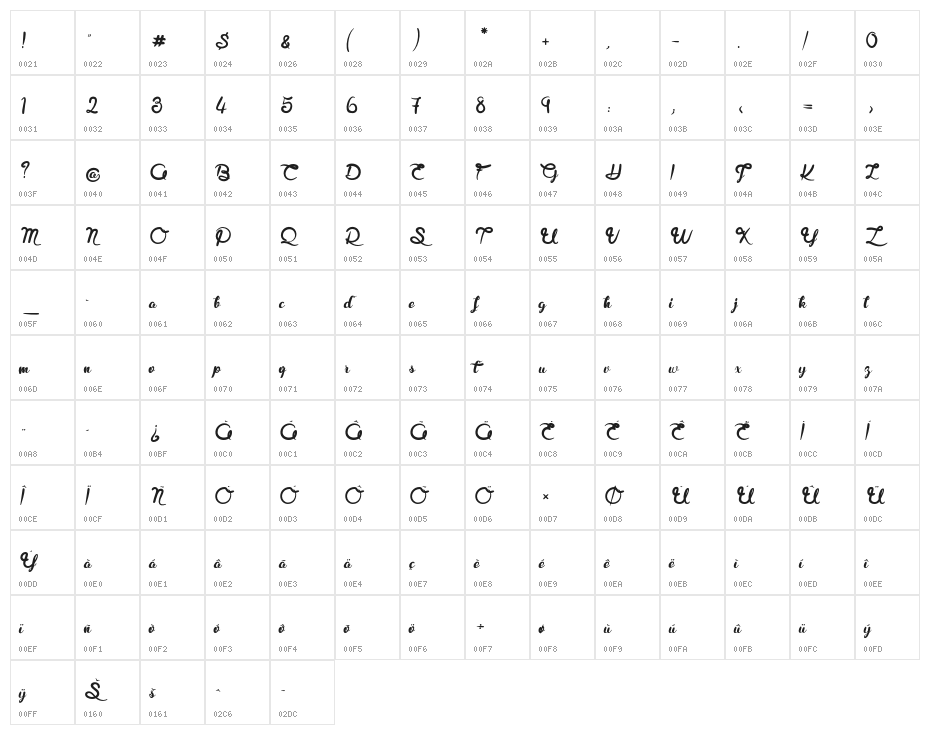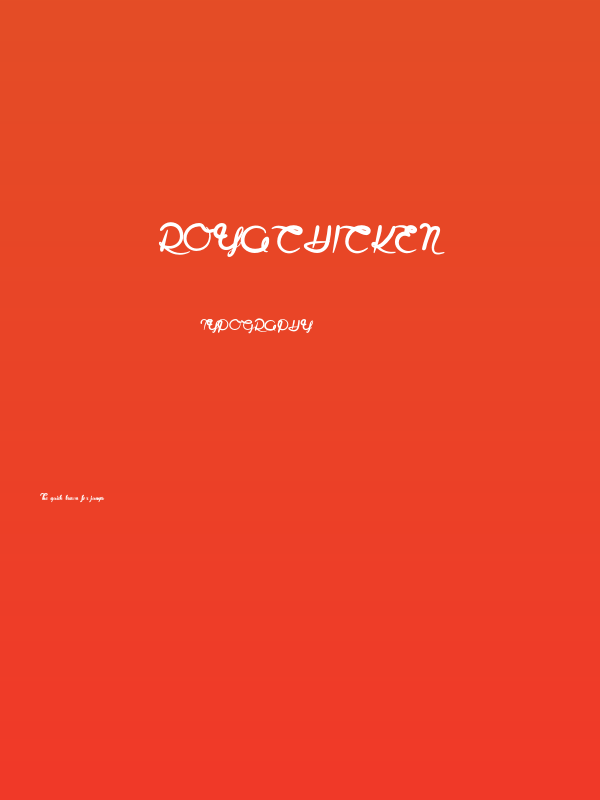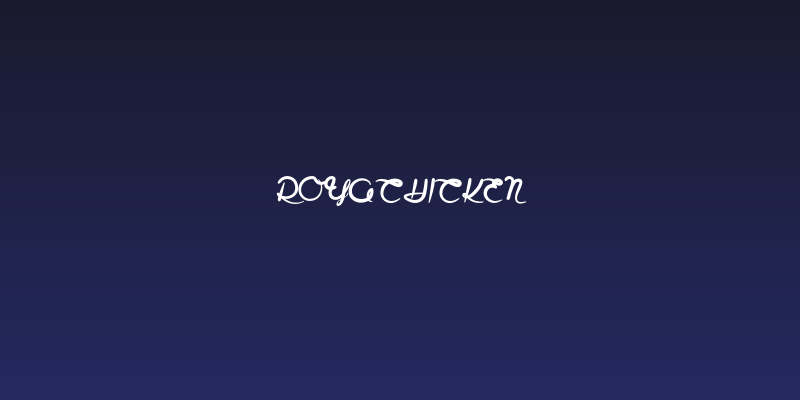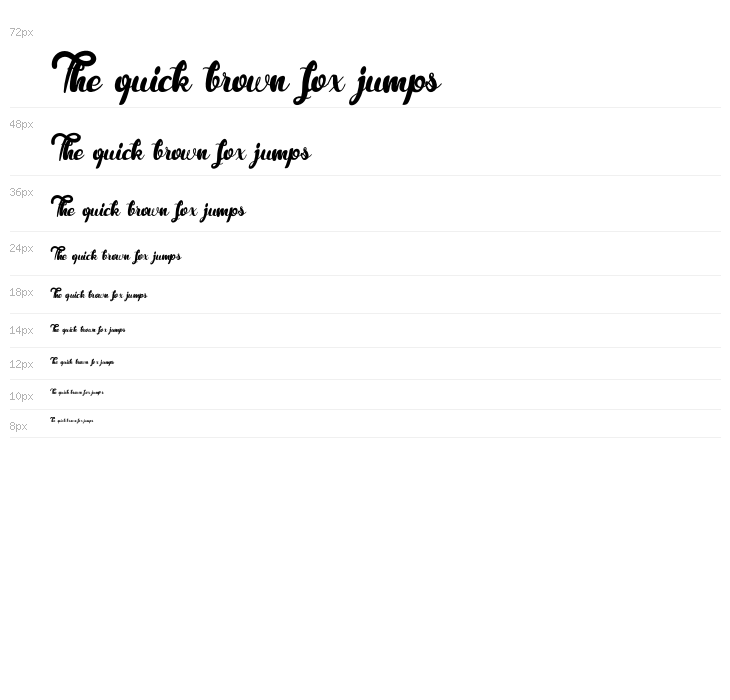
RoyaChicken Font
RoyaChicken Description
This font features a decorative and flowing script style, characterized by its elegant and artistic curves. The uppercase letters exhibit a bold and dynamic presence with sweeping strokes and intricate loops, while the lowercase letters maintain a consistent fluidity, enhancing readability despite their ornate design. The numerals are crafted with a similar flair, ensuring they harmonize with the overall aesthetic. Special characters are thoughtfully integrated, maintaining the font's cohesive and stylish appearance. This font's unique charm makes it suitable for projects that require a touch of sophistication and creativity.